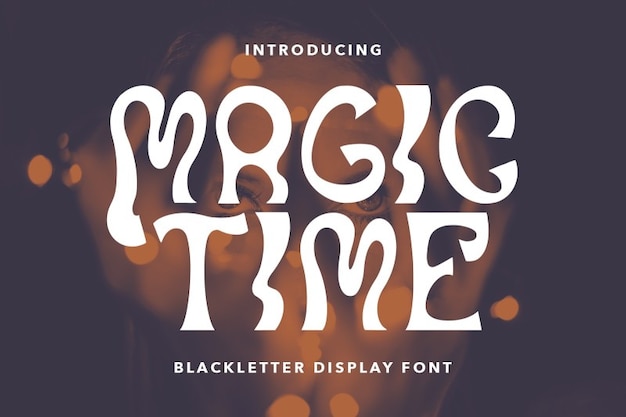
Magic Time
Magic Time Font
Maulana Creative
Magic Time is an experimental font that fuses modern aesthetics with the intricate flair of blackletter typography. Its bold, stylish strokes create a fashionable vibe, making it perfect for contemporary designs that seek to captivate and inspire. Ideal for branding, posters, and creative projects, Magic Time adds a touch of enchantment and sophistication, ensuring your message stands out with elegance and originality.